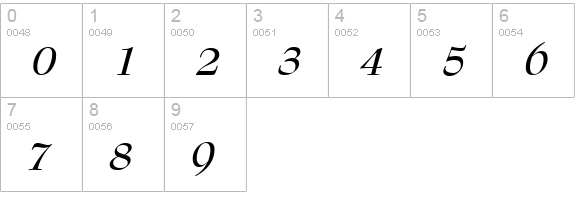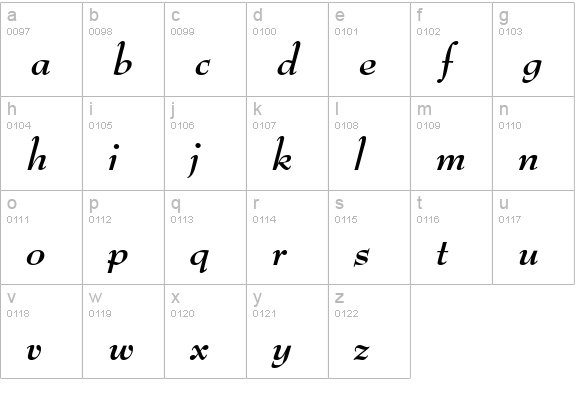
BernhardModern-BoldItalic Font Details
The BernhardModern-BoldItalic font is a stylish and sophisticated typeface that exudes elegance and modernity. Its bold and italic design makes it perfect for adding a touch of flair to any project. The sleek curves and sharp angles of this font give it a dynamic and eye-catching appearance that is sure to make a statement. Best of all, the BernhardModern-BoldItalic font is available for free download at FontsMarket.com. This means that you can easily access this stunning font and incorporate it into your designs without any cost. Whether you're working on a branding project, designing a website, or creating a poster, the BernhardModern-BoldItalic font is a versatile choice that will elevate your work to the next level. Don't miss out on the opportunity to enhance your designs with this beautiful typeface - download it for free today!